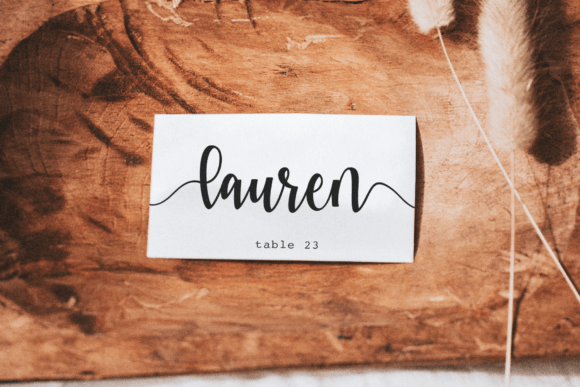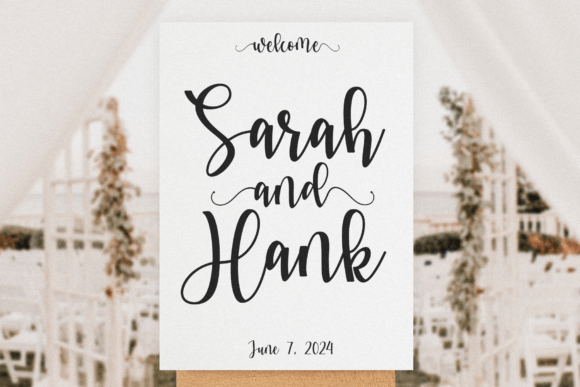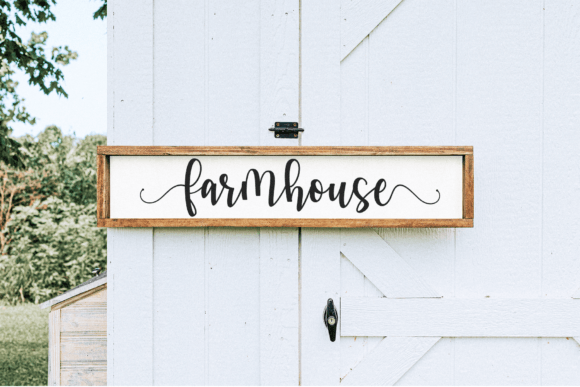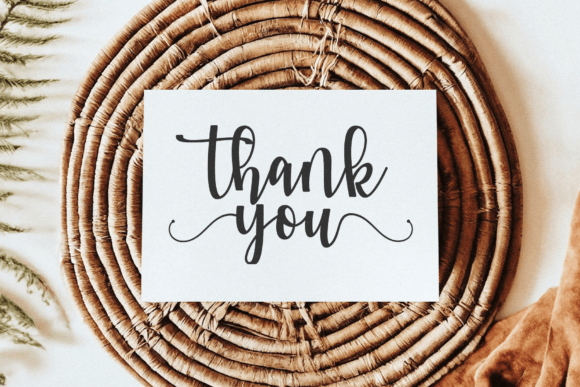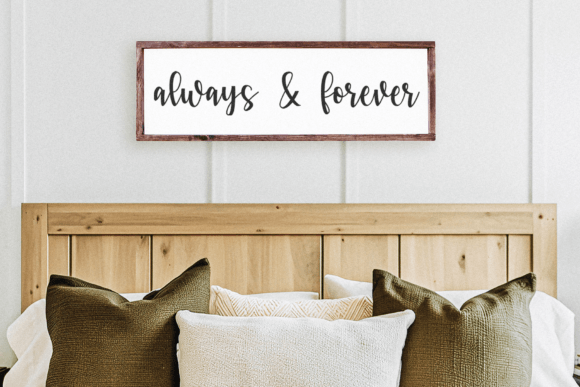
Introduction to Santorini Font
As you sit at your desk, surrounded by half-finished projects and scattered design materials, the blank page stares back at you, taunting you to create something truly special. And then it hits you – the perfect font to elevate your design to the next level. The Santorini Font is more than just a font, it’s a design resource that can transform your creative project into a stunning work of art.
With its delicate swashes and modern style, the Santorini Font is the perfect addition to any design. Whether you’re creating a beautiful wedding invitation, a logo for your new business, or a farmhouse design for your home, this high-quality font is sure to give your design a unique and personalized touch. And the best part? It’s available for free download, making it an accessible design resource for designers of all levels.
- High-quality, elegant design ideal for creative projects and designs
- Unique, hand-drawn design with a transparent background, perfect for adding a touch of sophistication
- Designed to be versatile and suitable for various design applications, from branding to digital art
- Includes a range of characters and glyphs, including uppercase and lowercase letters, numbers, and punctuation marks
- Perfect as a design resource for creative professionals and individuals working on high-end projects
Honest Review: Santorini Font
I recently had the chance to work with the Santorini Font, and I must say it’s a great addition to any design resource. This high-quality font is perfect for creative projects that require a touch of elegance and sophistication.
- ✨ Beautiful Greek-inspired design: The Santorini Font’s unique aesthetic makes it perfect for projects that need a cultural twist.
- ✨ Versatile usage: This font can be used for a wide range of creative projects, from print to digital media.
- ⚠️ Limited font sizes: The Santorini Font is best suited for larger font sizes, as it can appear pixelated at smaller sizes.
- ⚠️ Transparent background issues: I experienced some issues with the font’s transparent background, which can be tricky to work with.
Overall, I’m impressed with the Santorini Font’s high-quality design and versatility. While it may have some limitations, it’s definitely a valuable resource for designers working on creative projects. If you’re looking for a unique and elegant font, I’d definitely recommend giving the Santorini Font a try.
Santorini Font
The Santorini Font is perfect for a variety of creative projects, including:
- Photography and design portfolios
Tips for Getting the Most Out of the Santorini Font
To get the most out of the Santorini Font, consider the following tips:
- Use the font in conjunction with a transparent background for a clean and modern look.
- Combine the font with other design elements, such as images and shapes, to create a unique and eye-catching design.